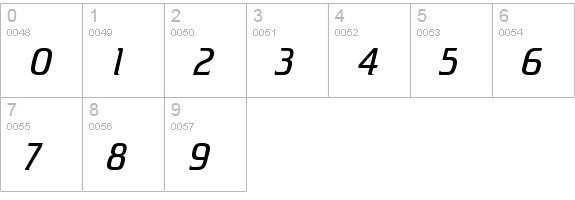
CrilleeEF-LightItalic Font Details
CrilleeEF-LightItalic is a stylish and elegant font that exudes sophistication and charm. With its delicate and slanted appearance, this font adds a touch of grace to any design project. Perfect for use in invitations, wedding stationery, and other formal events, CrilleeEF-LightItalic is sure to elevate your creations to the next level. What's even better is that CrilleeEF-LightItalic is completely free to download at FontsMarket.com. That's right, you can easily access this beautiful font without any cost, making it a valuable addition to your font collection. Whether you're a graphic designer, a blogger, or anyone looking to enhance their projects with a touch of class, CrilleeEF-LightItalic is the perfect choice. Download it today and see the difference it can make in your designs!